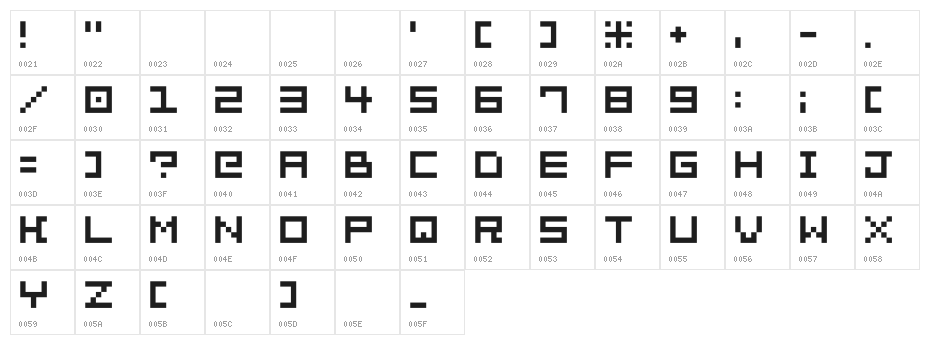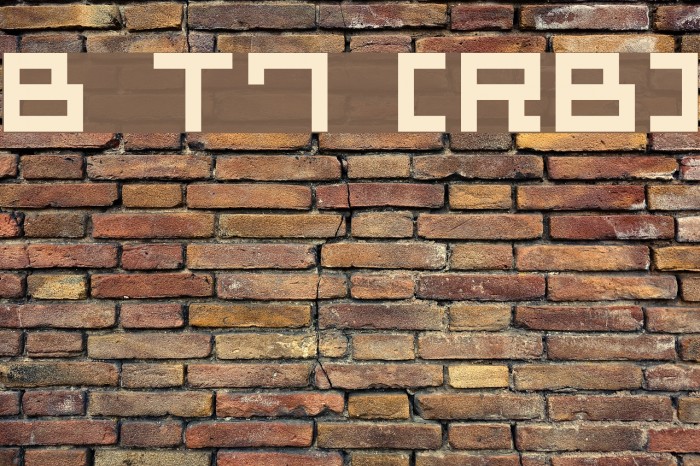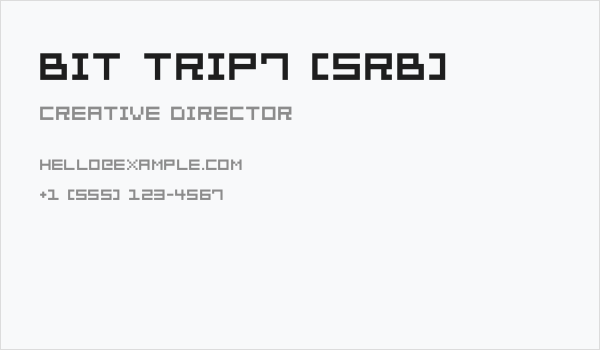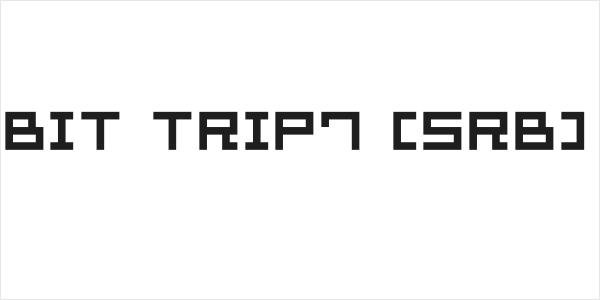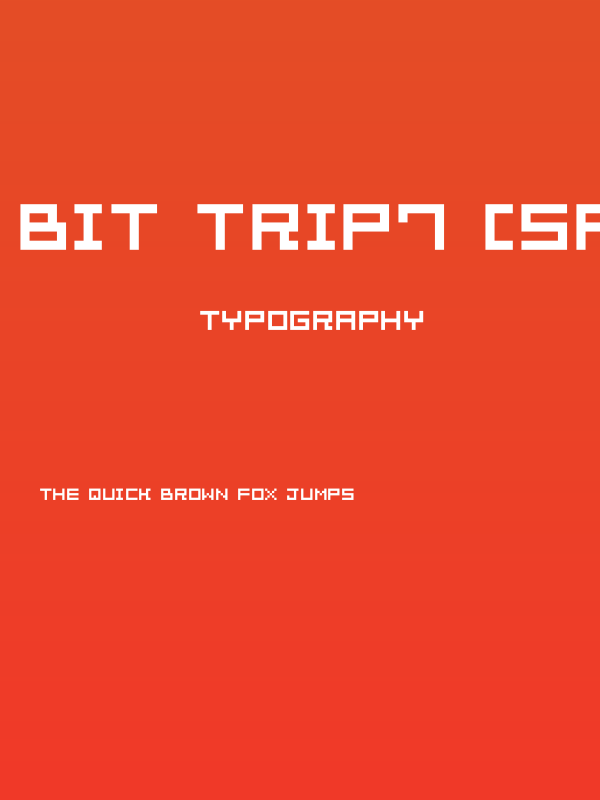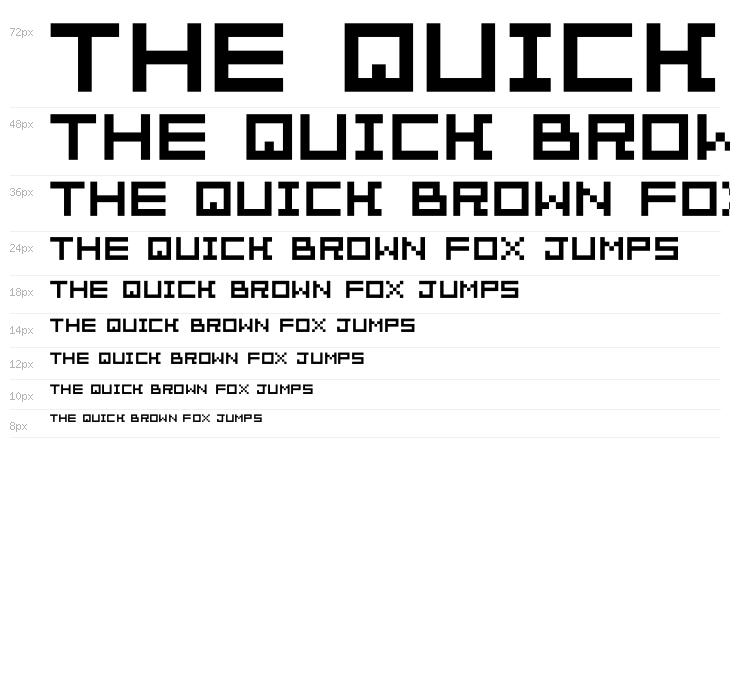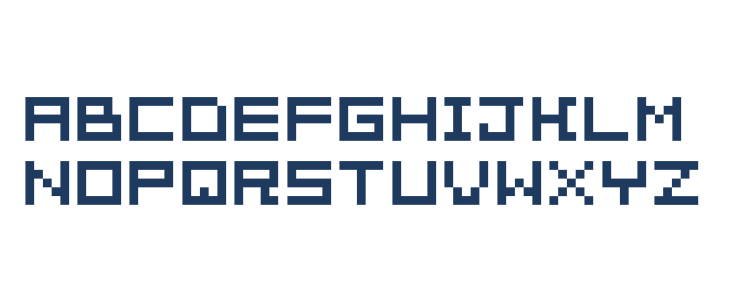
Bit Trip7 [sRB] Font
Bit Trip7 [sRB] Description
This font features a pixelated, blocky design reminiscent of early digital or video game aesthetics. Each character is composed of uniform square blocks, creating a distinctly retro and digital feel. The uppercase and lowercase letters maintain a consistent height, contributing to a monospaced appearance. The numerals and special characters follow the same pixelated style, ensuring visual coherence across all glyphs. This design is ideal for projects that aim to evoke nostalgia for 8-bit or 16-bit video games, or for any digital-themed creative work.
| Use Case | Logos, Headlines, Digital Art |
| Proposed Projects | Ideal for video game designs, digital art projects, retro-themed posters, and any creative work that requires a nostalgic digital look. |